Handwriting
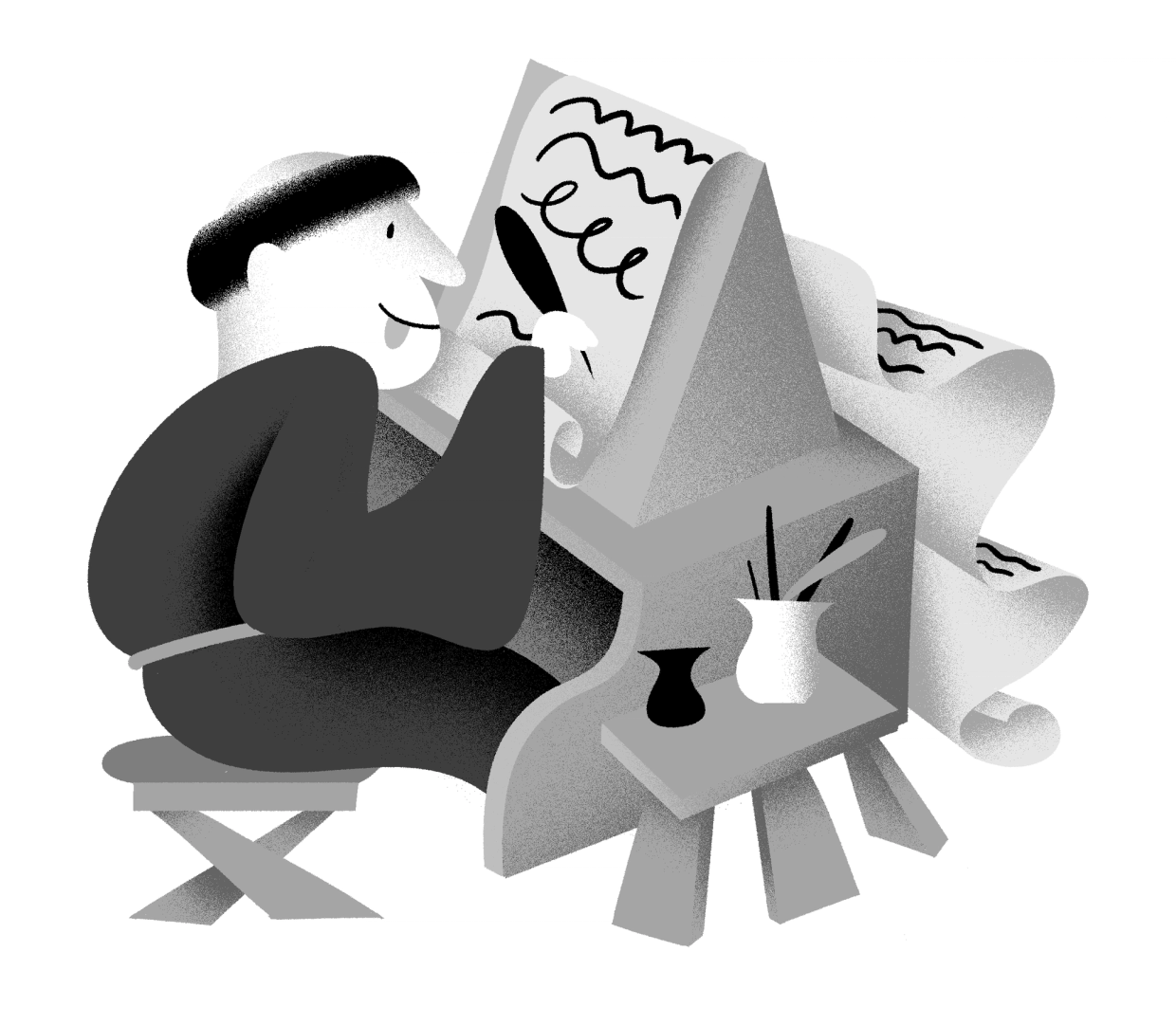
The word ‘handwriting’ refers to texts written by hand.
Handwritten forms of any languages, combined together as handwritings, are considered to be one of the most important technologies ever invented, as it separated communications from live speech, made knowledge preservable, and began the development of numerous devices used for writing and materials to write on.
In many cultures, handwriting is so tightly related to the person writing a text that many consider someone’s handwriting style to reflect either the personality of the writer or his/her emotions at the moment of writing (and also his/her age).